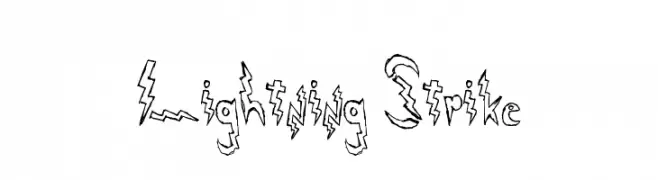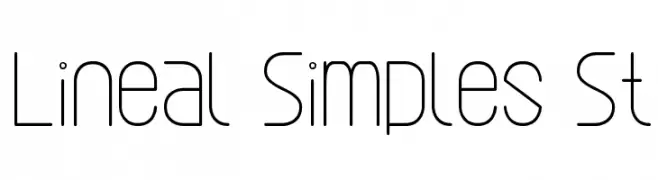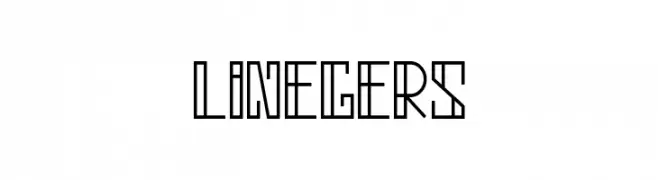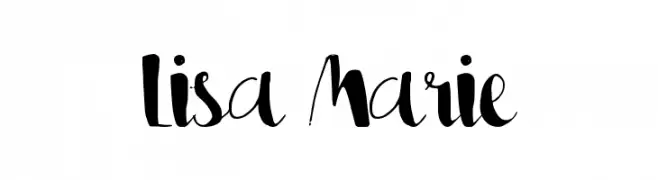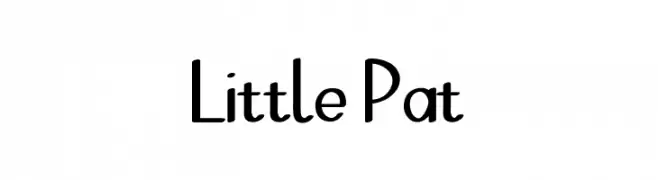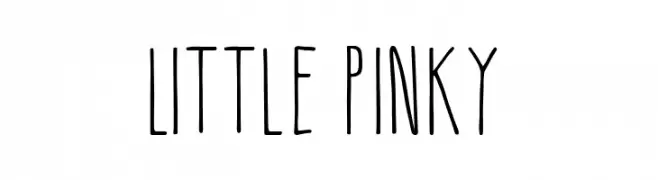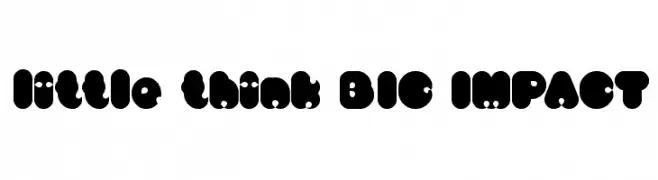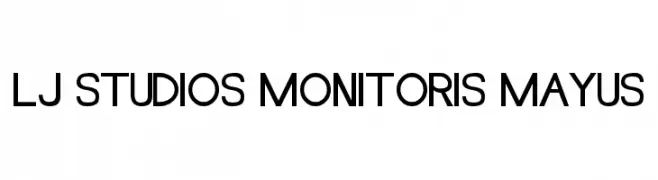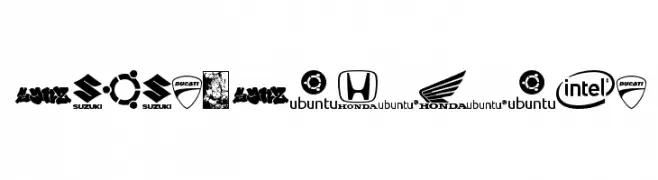
A bold, dynamic script font with sweeping curves and dramatic flourishes.
A playful, cursive font with elegant loops and decorative swashes.
A playful, whimsical handwritten font with fluid, flowing letterforms.
A bold, decorative font with floral motifs in uppercase letters.
A bold, geometric sans-serif font with high contrast and unique cutouts.
A clean, geometric font with thin, uniform lines and rounded edges, offering a modern and minimalist look.
A bold, geometric font with angular shapes and sharp edges.
A bold, italicized sans-serif font with a modern and dynamic style.
A whimsical, handwritten font with playful, uneven strokes.
A playful, hand-drawn font with tall, narrow letters and a whimsical style.
Playful, abstract doodles with a dynamic and whimsical style.
A bold, playful font with rounded, bubble-like characters and unique cut-out details.
A bold, playful font with circular cutouts and a strong visual impact.
An elegant, decorative font with intricate, ornate letterforms and a vintage flair.
A bold, blackletter-style font with intricate, angular strokes and a medieval flair.
A medieval-inspired font with sharp, angular strokes and a gothic flair.
A bold, geometric font with a futuristic and edgy design.
A bold, italicized font with a modern, angular design.
A bold, extruded font with a 3D effect and geometric structure.
A bold, extruded, and italic font with a futuristic 3D effect.
A bold, geometric font with diagonal stripes, ideal for striking display use.
A dynamic, striped, italic font with a modern and bold appearance.
A modern, sleek font with a futuristic and streamlined design.
A decorative display font mimicking popular brand logos.
A playful, hand-drawn font with irregular, rounded edges and a casual style.
A modern, geometric sans-serif font with clean lines and uniform strokes.
A bold and playful font with rounded, whimsical characters.